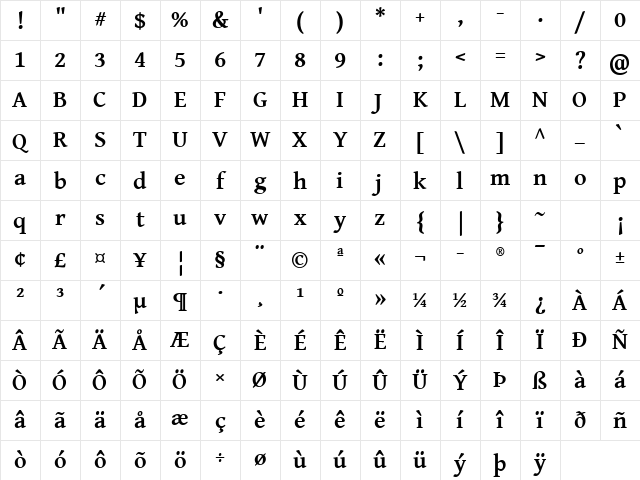
Gentium Basic Bold
Foundry: SIL International
Designer: J. Victor Gaultney and Annie Olsen
Design Context for Gentium Basic
Gentium Basic is a composed and adaptable typeface that performs quietly and consistently across a wide range of design contexts. Its bold stroke weight gives it real presence on the page.
Pro Tip: Use Gentium Basic in both headline and body roles to test its range before committing to a single application.